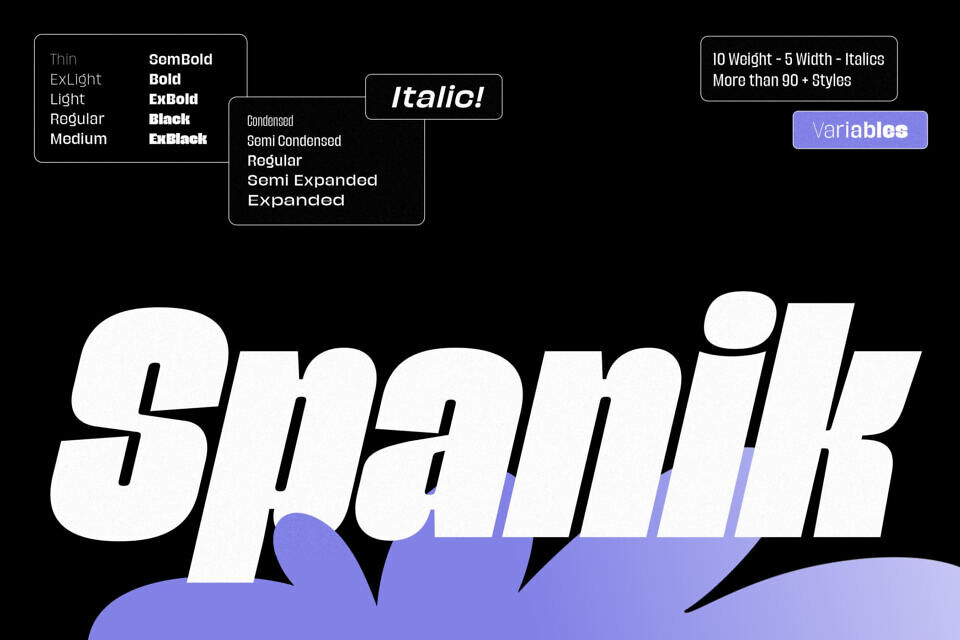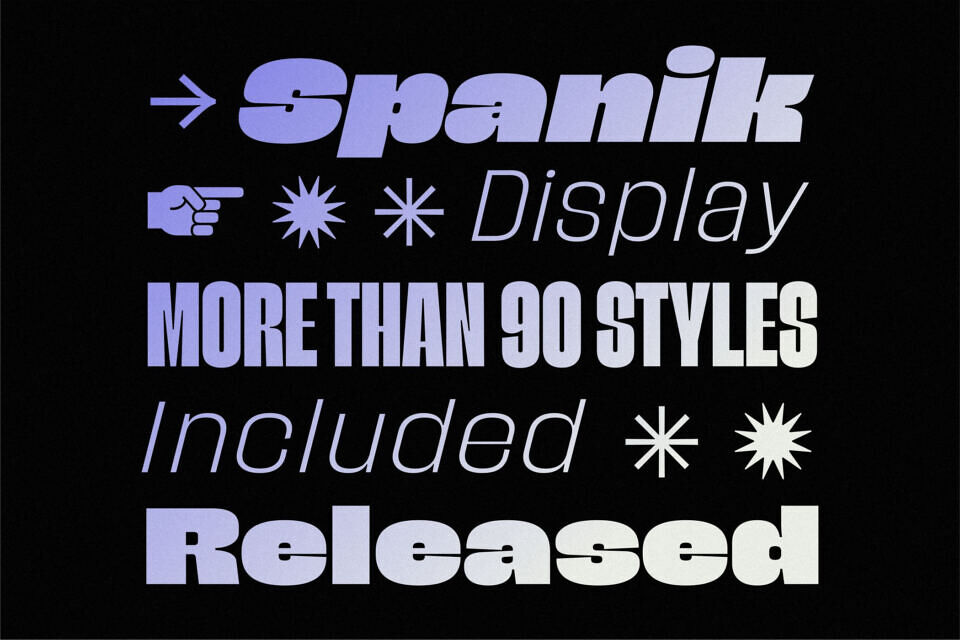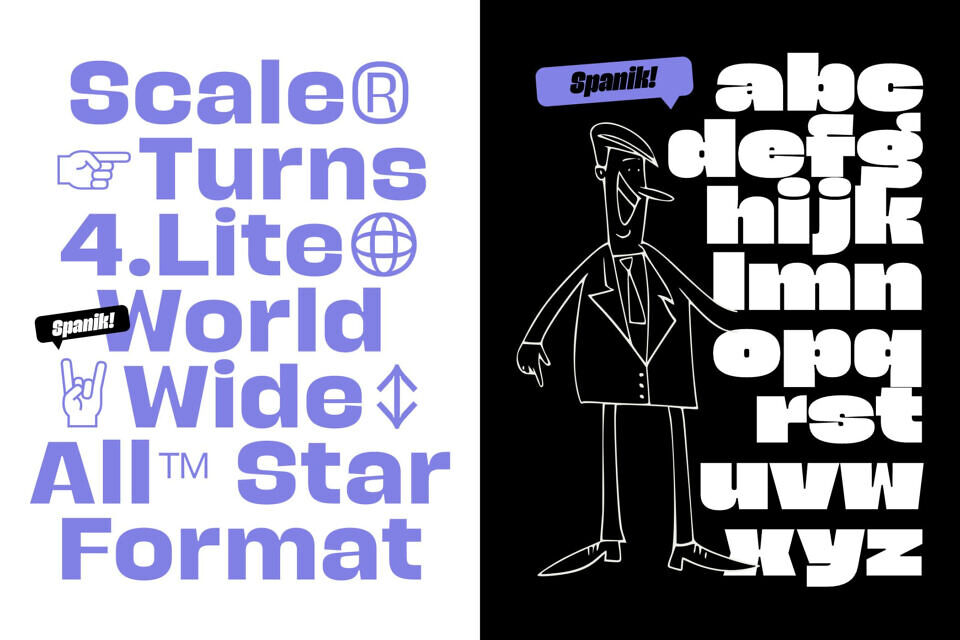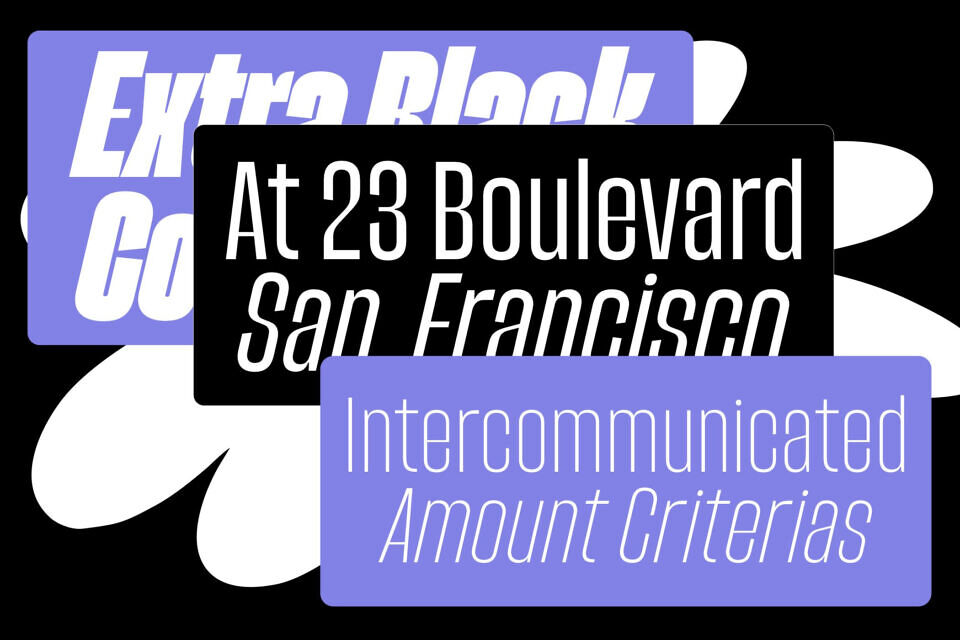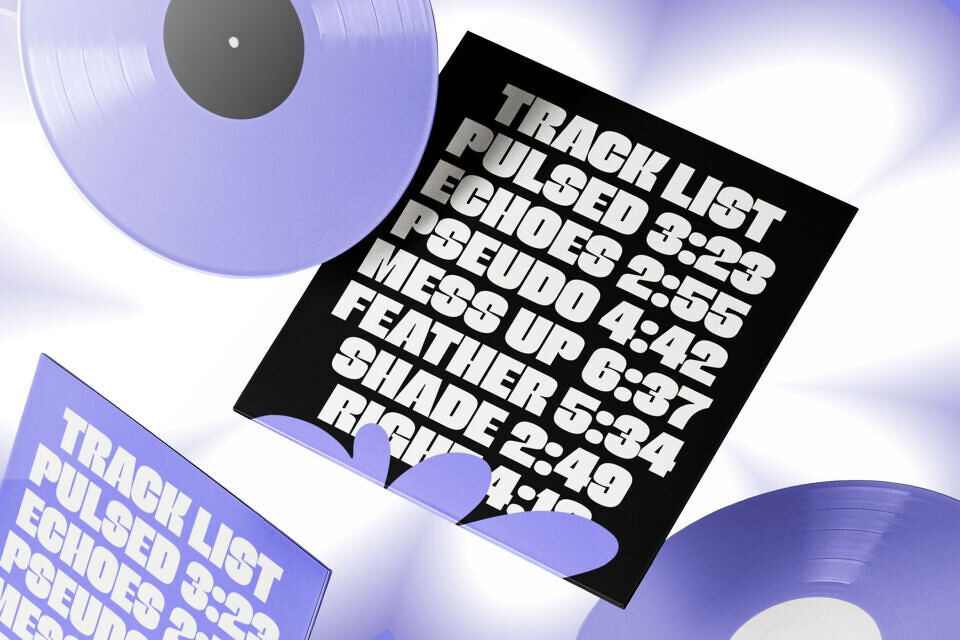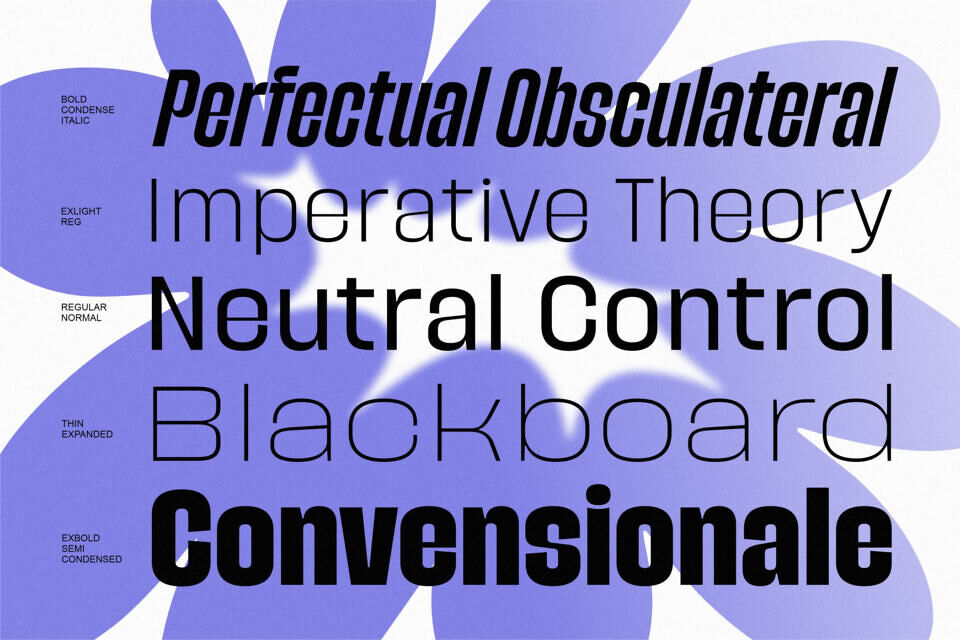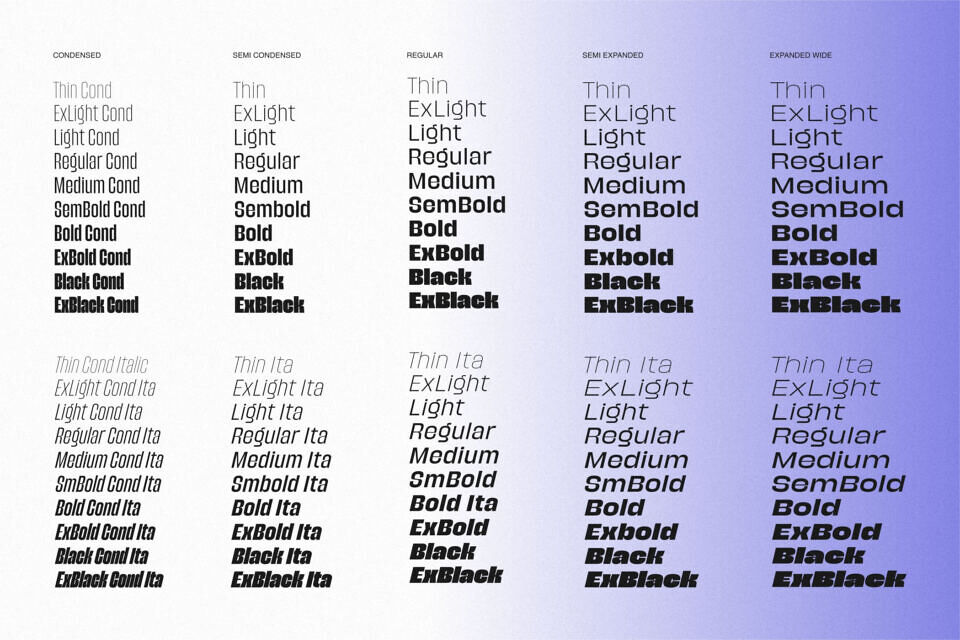
Spanik Display is a bold, modern superfamily built for designers who need range, flexibility, and strong visual impact. Designed with a distinctive forward-leaning rhythm, Spanik blends sharp precision with expressive energy—making it ideal for standout headlines, branding, posters, editorial layouts, and digital interfaces.
Spanik’s character set is clean, contemporary, and highly adaptable—perfect for everything from futuristic aesthetics to bold sports branding, tech visuals, advertising, and high-impact typographic compositions.